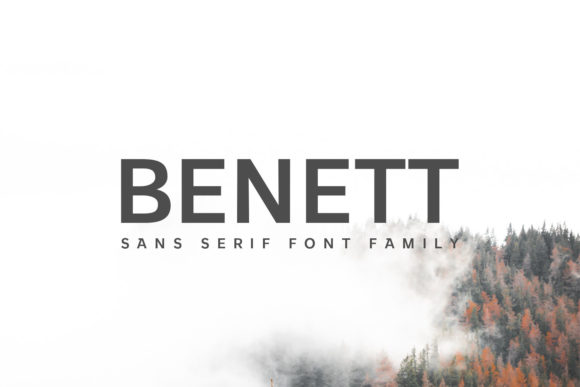
The Benett Family Font: A Designer’s New Best Friend
So, what makes the Benett Family Font so special? Here are a few things I love:
- ✨ It’s a clean sans serif family with a range of styles, including regular, round, and bold versions.
- ✅ It’s incredibly versatile, making it perfect for a wide range of design projects, from packaging and presentations to logos and posters.
- 🔥 It’s highly legible, even at small sizes, which is a must for any font.
- 🤔 Some users have noted that the font can feel a bit too similar to Helvetica, which may be a drawback for those looking for a more unique look.
- ⚠️ The font doesn’t include any extensive language support, so it may not be the best choice for projects that require a wide range of languages.
The Story Behind the Benett Family Font
The Benett Family Font was designed with the goal of creating a clean, modern, and versatile sans serif font that could be used for a wide range of design projects. The designer, inspired by the classic typography of the 20th century, set out to create a font that was both elegant and highly legible. The result is a font that is perfect for designers, crafters, and creative hobbyists who need a reliable and stylish font for their projects.
| Font Name | Benett Family Font |
| Author | creativetacos |
| What is the Benett Family Font? | The Benett Family Font is a clean sans serif font family that includes regular, round, and bold versions. |
| What can I use the Benett Family Font for? | You can use the Benett Family Font for a wide range of design projects, including packaging, presentations, logos, posters, and more. |
| Is the Benett Family Font easy to read? | Yes, the Benett Family Font is highly legible, even at small sizes. |